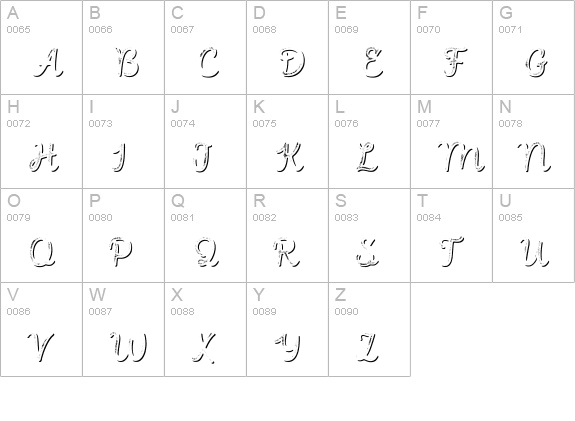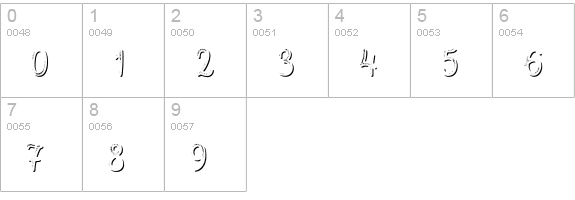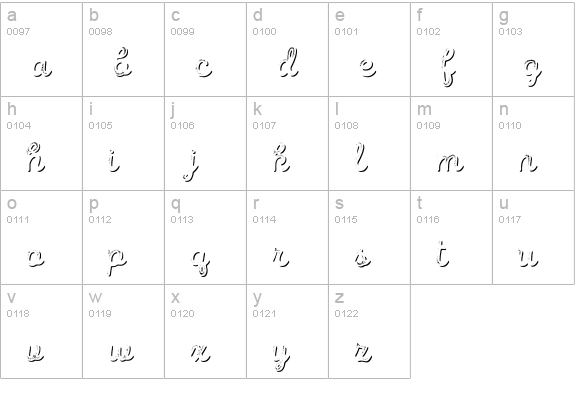
Intro Script R G Shade Font Details
The Intro Script R G Shade font is a stunning display typeface that exudes elegance and sophistication. Its unique design features intricate details and a subtle shading effect that adds depth to any text. This font is perfect for creating eye-catching titles, logos, and branding materials. Best of all, the Intro Script R G Shade font is completely free to download at FontsMarket.com. Whether you're a graphic designer, a business owner, or a creative enthusiast, this font is a valuable addition to your collection. Don't miss out on the opportunity to enhance your projects with this beautiful and versatile typeface. Download the Intro Script R G Shade font today and elevate your designs to the next level.